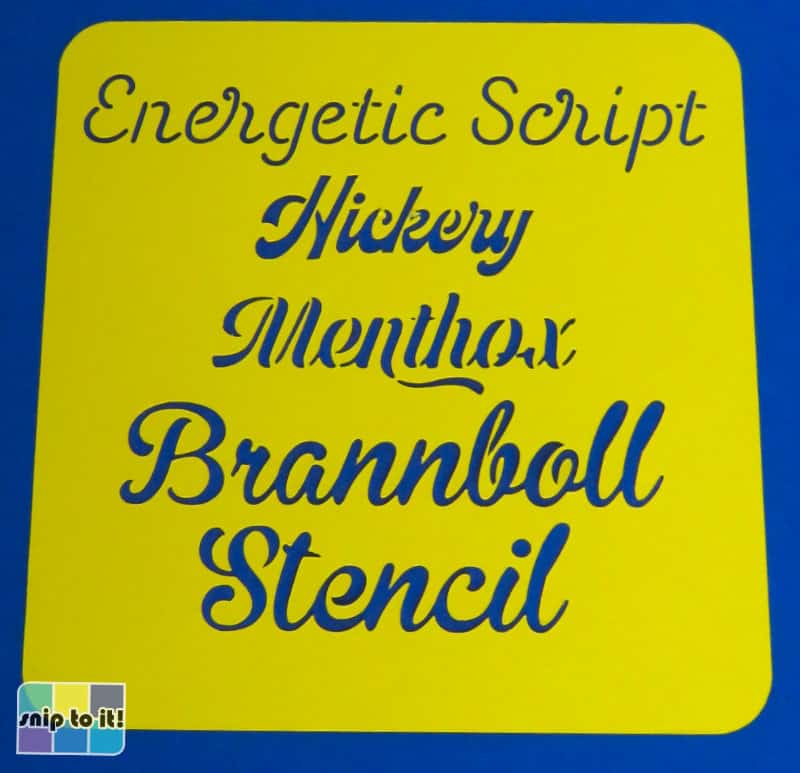
What Is The Best Cricut Font For Stencils . In this article, you'll find what fonts work to make a cricut stencil and some of the best stencil fonts to use with your cricut. Learn how to make a stencil with cricut including a reusable stencil. Surplus pro has both a grunge and a classic font. If you are looking for some of the best stencil fonts to use for cricut stencils, check out these suggestions. Stencil allround is a nice rounded stencil with bridges that allow for making stencils. The best stencil fonts from envato elements. I'm testing 5 different materials to see which stencil works. When working with vinyl it’s crucial that you.
In this article, you'll find what fonts work to make a cricut stencil and some of the best stencil fonts to use with your cricut. Learn how to make a stencil with cricut including a reusable stencil. If you are looking for some of the best stencil fonts to use for cricut stencils, check out these suggestions. I'm testing 5 different materials to see which stencil works. When working with vinyl it’s crucial that you. Stencil allround is a nice rounded stencil with bridges that allow for making stencils. The best stencil fonts from envato elements. Surplus pro has both a grunge and a classic font.
What Is The Best Cricut Font For Stencils Stencil allround is a nice rounded stencil with bridges that allow for making stencils. I'm testing 5 different materials to see which stencil works. Learn how to make a stencil with cricut including a reusable stencil. Stencil allround is a nice rounded stencil with bridges that allow for making stencils. In this article, you'll find what fonts work to make a cricut stencil and some of the best stencil fonts to use with your cricut. When working with vinyl it’s crucial that you. The best stencil fonts from envato elements. Surplus pro has both a grunge and a classic font. If you are looking for some of the best stencil fonts to use for cricut stencils, check out these suggestions.
The Best Cricut Design Space Fonts + Printable Cricut Fonts List What Is The Best Cricut Font For Stencils In this article, you'll find what fonts work to make a cricut stencil and some of the best stencil fonts to use with your cricut. When working with vinyl it’s crucial that you. Learn how to make a stencil with cricut including a reusable stencil. If you are looking for some of the best stencil fonts to use for cricut. What Is The Best Cricut Font For Stencils.
Fonts for your Cricut Projects Cricut fonts, Lettering, Cricut projects What Is The Best Cricut Font For Stencils Stencil allround is a nice rounded stencil with bridges that allow for making stencils. If you are looking for some of the best stencil fonts to use for cricut stencils, check out these suggestions. I'm testing 5 different materials to see which stencil works. Surplus pro has both a grunge and a classic font. Learn how to make a stencil. What Is The Best Cricut Font For Stencils.
10 Beautiful Free Stencil Fonts (Perfect For Signs!) Cricuit Help Free Printable Fonts What Is The Best Cricut Font For Stencils The best stencil fonts from envato elements. When working with vinyl it’s crucial that you. If you are looking for some of the best stencil fonts to use for cricut stencils, check out these suggestions. Stencil allround is a nice rounded stencil with bridges that allow for making stencils. Learn how to make a stencil with cricut including a reusable. What Is The Best Cricut Font For Stencils.
Best Cricut Fonts For Stencils What Is The Best Cricut Font For Stencils Stencil allround is a nice rounded stencil with bridges that allow for making stencils. In this article, you'll find what fonts work to make a cricut stencil and some of the best stencil fonts to use with your cricut. Surplus pro has both a grunge and a classic font. When working with vinyl it’s crucial that you. If you are. What Is The Best Cricut Font For Stencils.
Cricut Fonts Cricut fonts, Cricut tutorials, Cricut What Is The Best Cricut Font For Stencils Surplus pro has both a grunge and a classic font. If you are looking for some of the best stencil fonts to use for cricut stencils, check out these suggestions. I'm testing 5 different materials to see which stencil works. In this article, you'll find what fonts work to make a cricut stencil and some of the best stencil fonts. What Is The Best Cricut Font For Stencils.
Stencil Fonts For Cricut Free The Best Stencil Fonts From Envato Elements. Printable Templates What Is The Best Cricut Font For Stencils Stencil allround is a nice rounded stencil with bridges that allow for making stencils. When working with vinyl it’s crucial that you. The best stencil fonts from envato elements. I'm testing 5 different materials to see which stencil works. In this article, you'll find what fonts work to make a cricut stencil and some of the best stencil fonts to. What Is The Best Cricut Font For Stencils.
Stencil Fonts For Cricut Free The Best Stencil Fonts From Envato Elements. Printable Templates What Is The Best Cricut Font For Stencils In this article, you'll find what fonts work to make a cricut stencil and some of the best stencil fonts to use with your cricut. I'm testing 5 different materials to see which stencil works. The best stencil fonts from envato elements. Learn how to make a stencil with cricut including a reusable stencil. Surplus pro has both a grunge. What Is The Best Cricut Font For Stencils.
10 best fonts for cricut svg files to make sell Artofit What Is The Best Cricut Font For Stencils In this article, you'll find what fonts work to make a cricut stencil and some of the best stencil fonts to use with your cricut. The best stencil fonts from envato elements. Stencil allround is a nice rounded stencil with bridges that allow for making stencils. I'm testing 5 different materials to see which stencil works. Surplus pro has both. What Is The Best Cricut Font For Stencils.